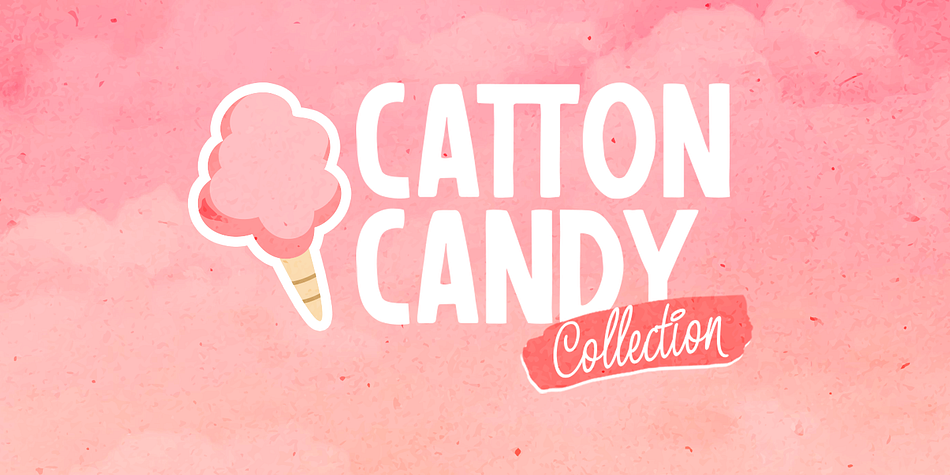
BULGARY REAGANS
Designed by Hendry Juanda, Bulgary Reagans is a display sans, hand drawn and script font family. This typeface has two styles and was published by Letterhend Studio.
Bulgary Reagans  is a pair of font that brings the  playful looks with casual feel. The handwritten sans serif combined with the natural hand writing script are the perfect match for you who needs a typeface for headline, logotype, apparel, invitation, branding, packaging, advertising etc.